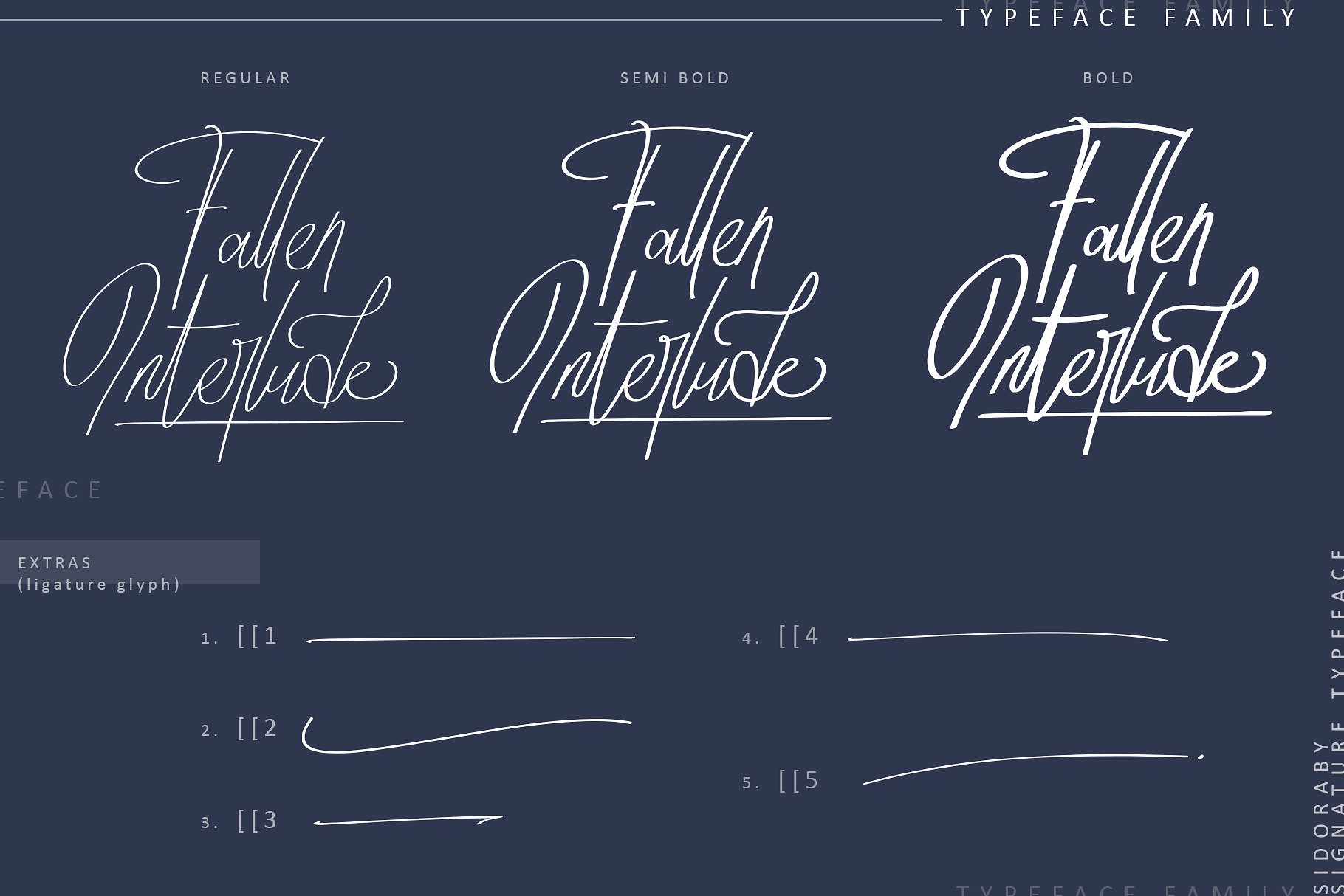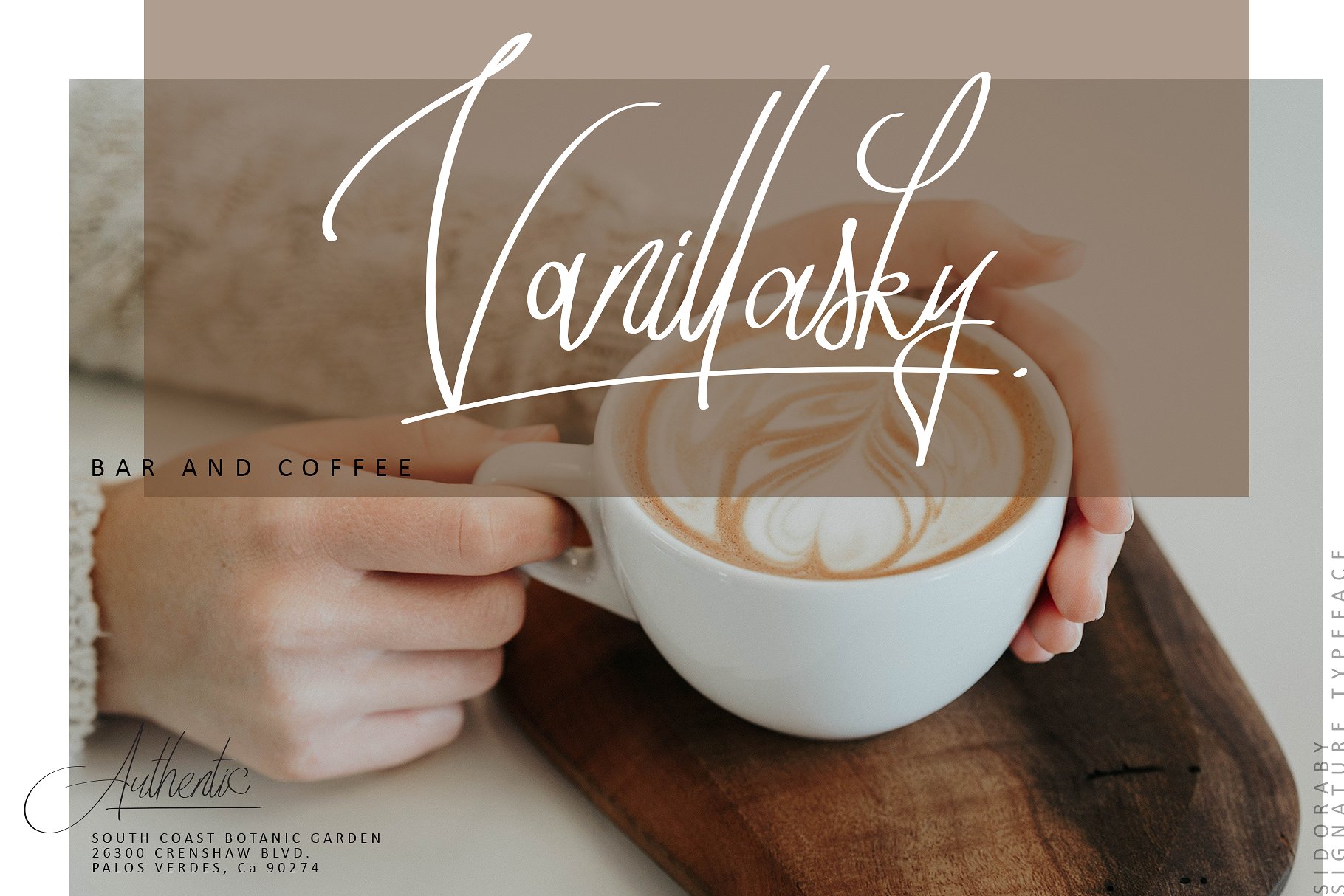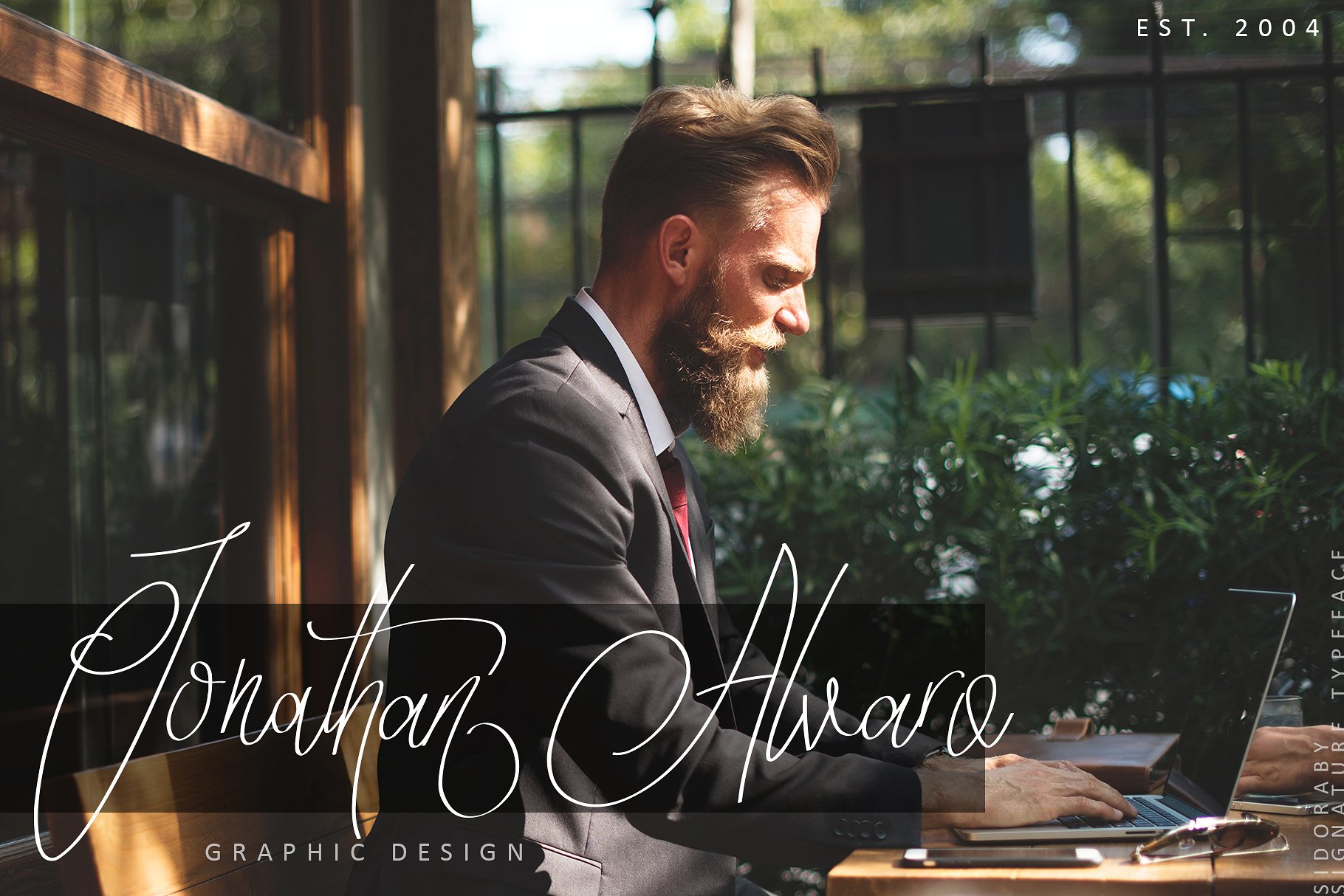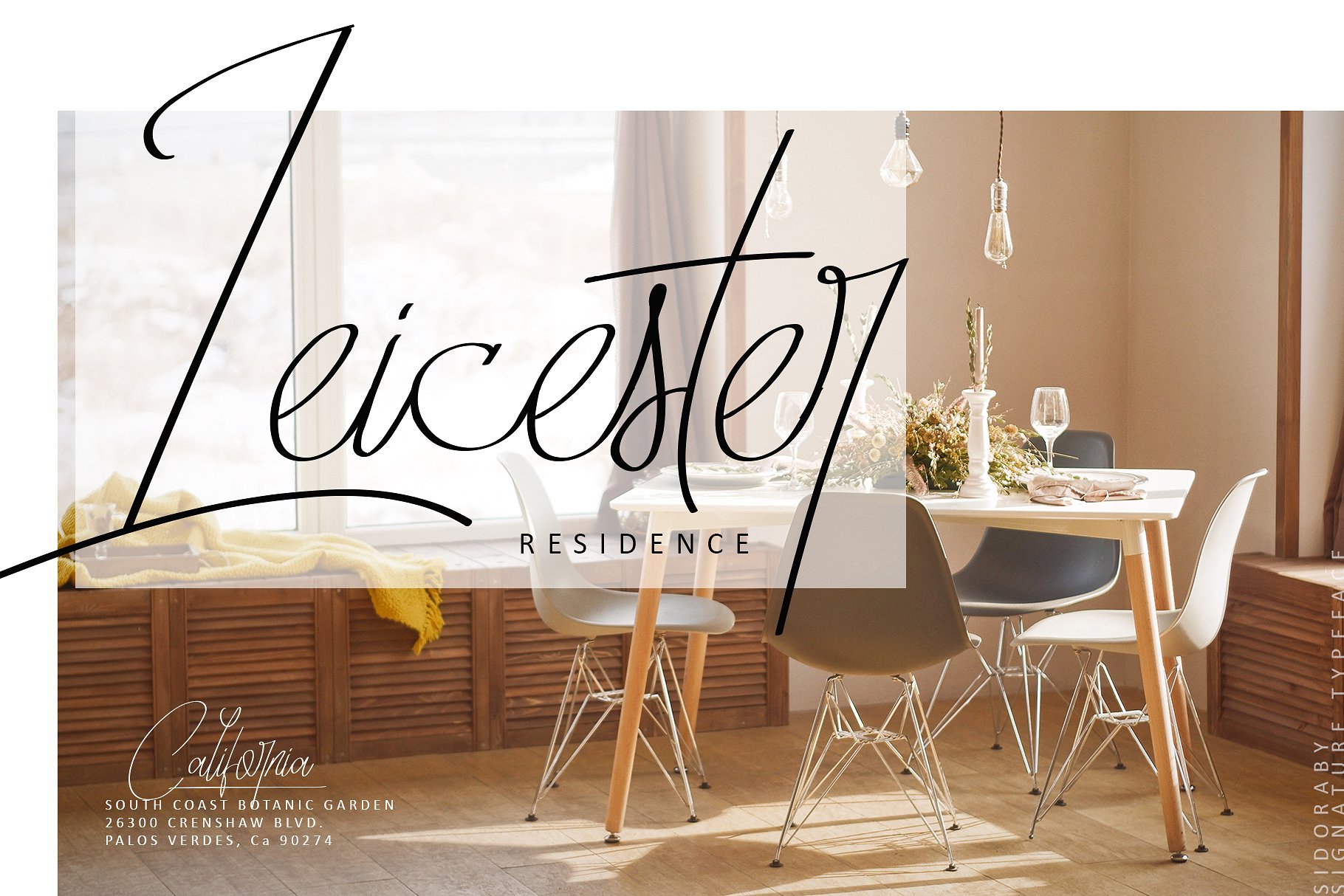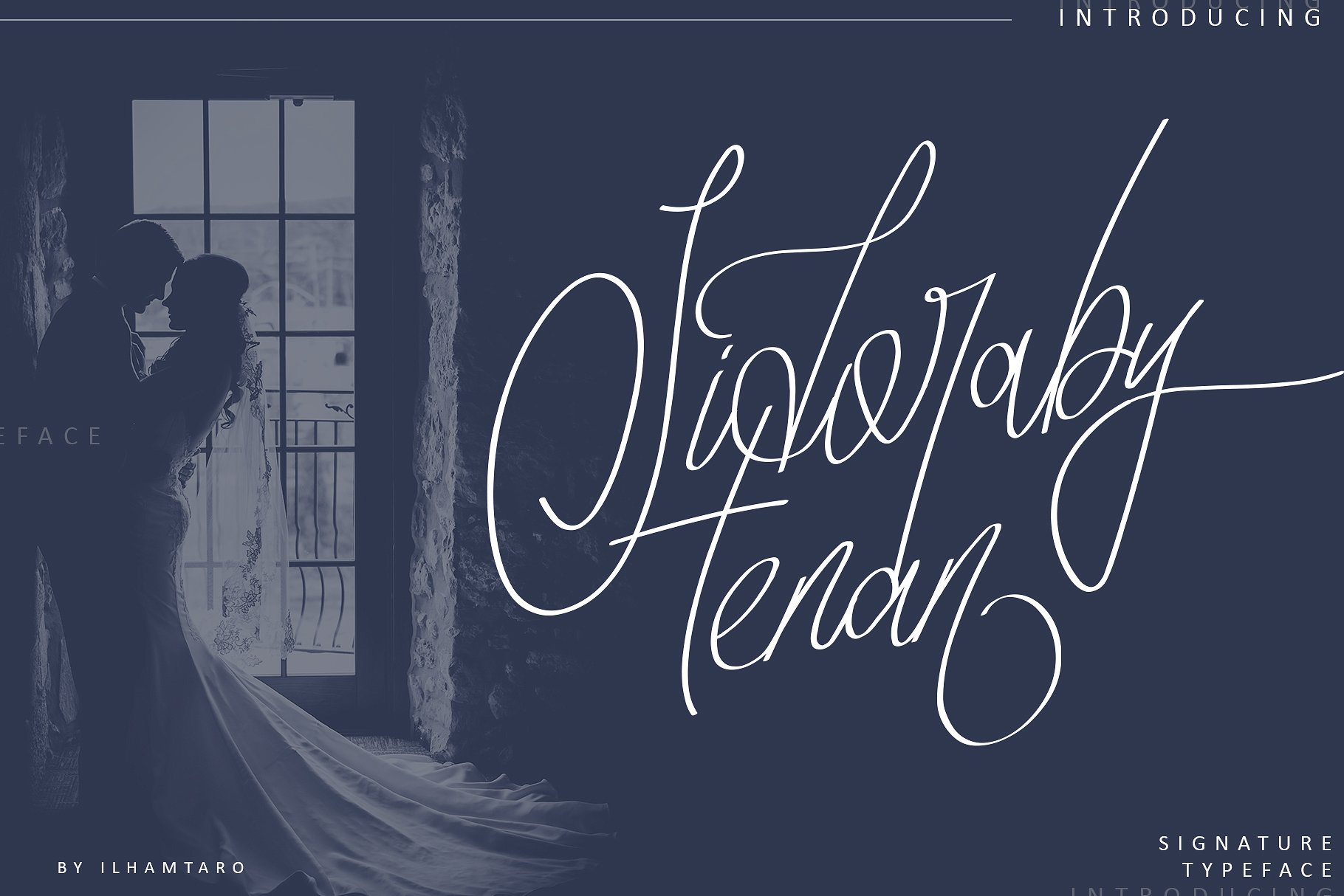
Sidoraby Signature Font
Hi designer! Introducing Sidoraby Font. SIDORABY is a typeface with signature style taste, includes full set of gorgeous uppercase and lowercase letters, numerals, punctuation, ligatures and alternate characters, giving realistic hand-lettered style. Sidoraby  perfect to be applied in various formal forms such as invitations, labels, menus, logos, fashion, make up, stationery, letterpress, romantic novels, books, greeting / wedding cards, packaging, labels, and more.